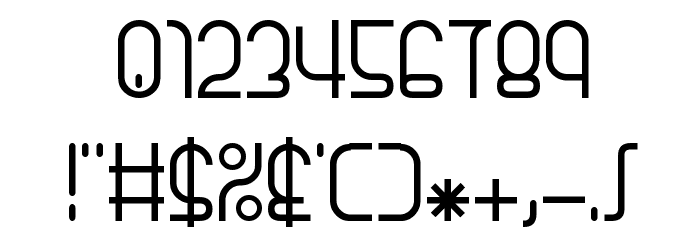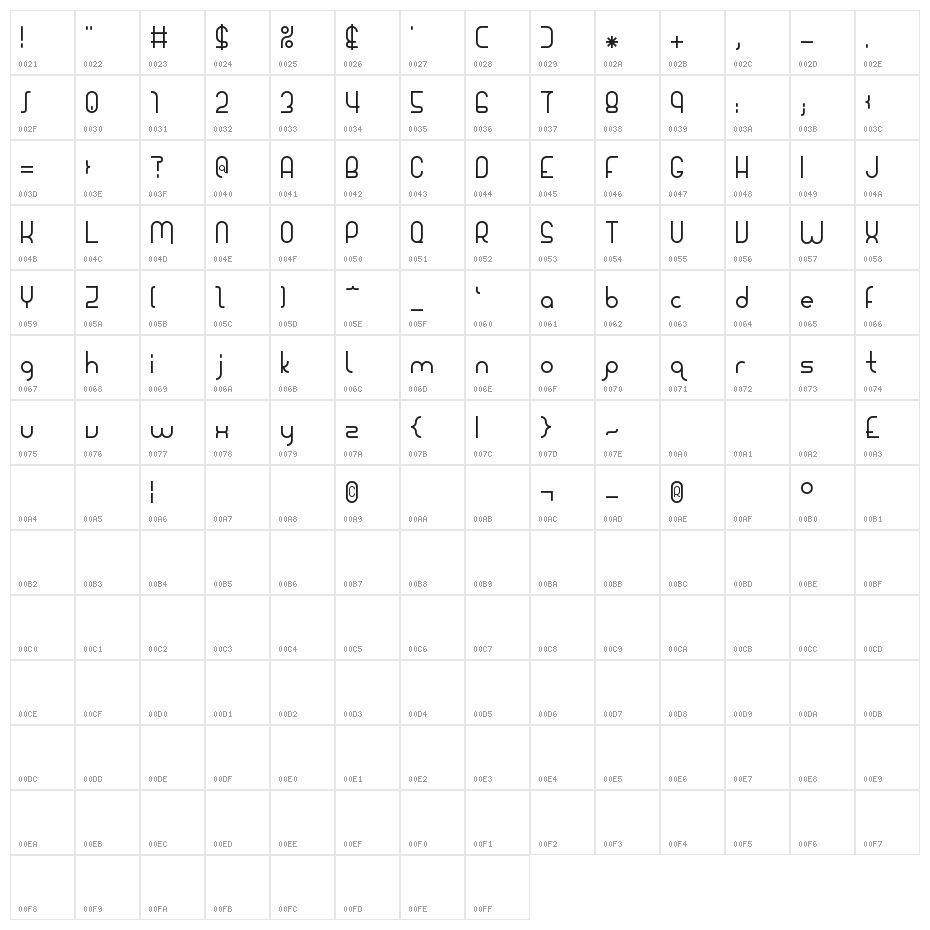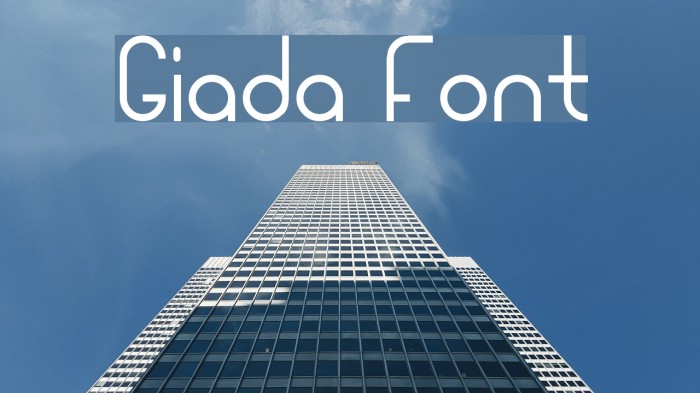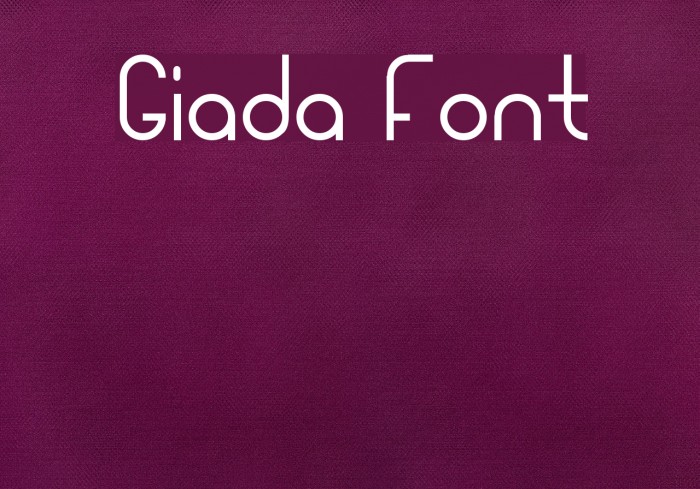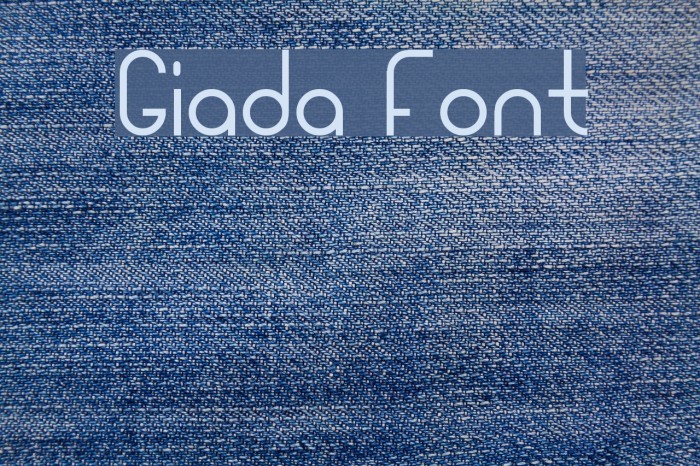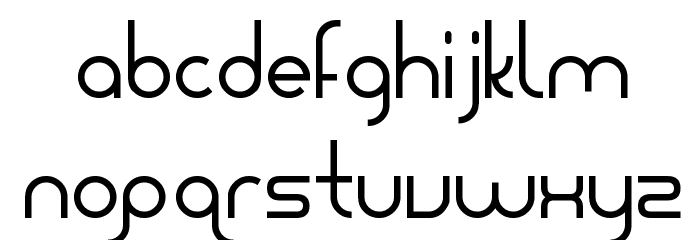
Giada Font
Giada Description
This font features a modern and geometric design, characterized by its clean lines and rounded edges. The uppercase letters are uniform in height, creating a cohesive and structured appearance. The lowercase letters maintain a similar style, with a slightly more playful and approachable feel due to their rounded forms. Numbers are consistent with the overall geometric theme, offering clarity and readability. Special characters are designed to match the font's aesthetic, ensuring a seamless integration with text. The font's simplicity and elegance make it versatile for various design applications.